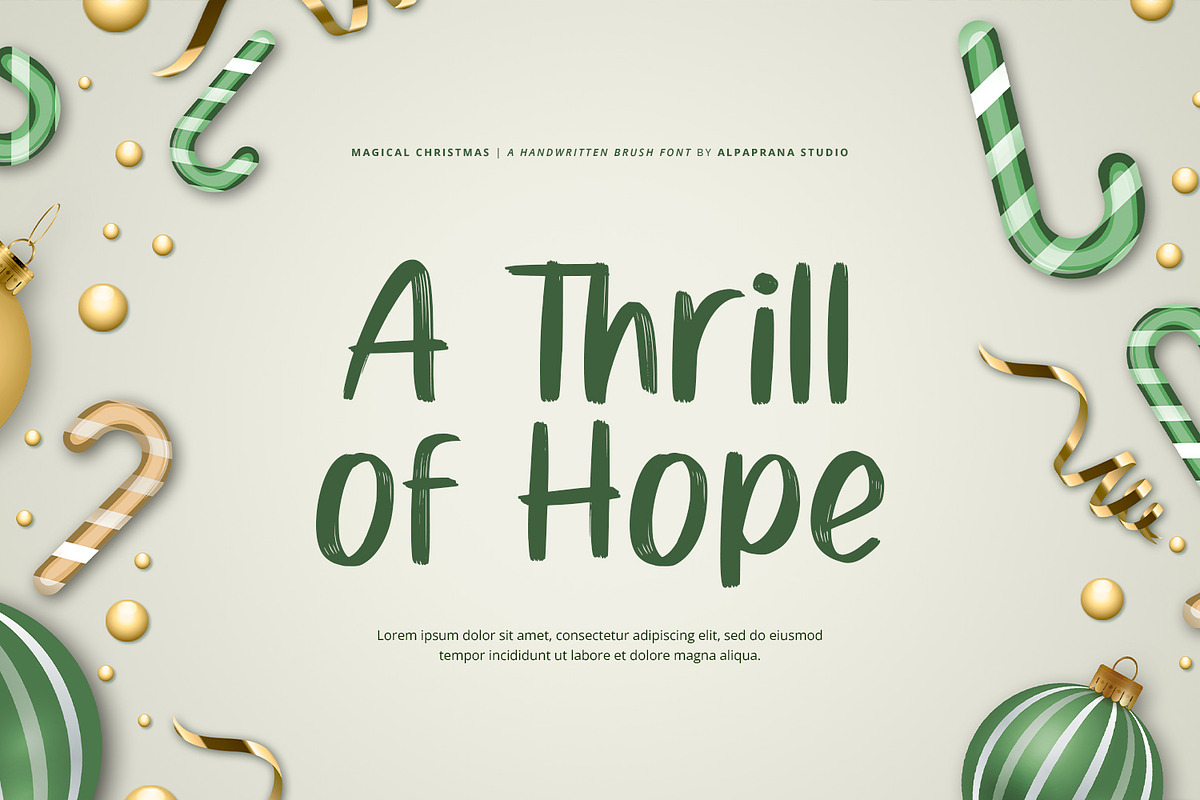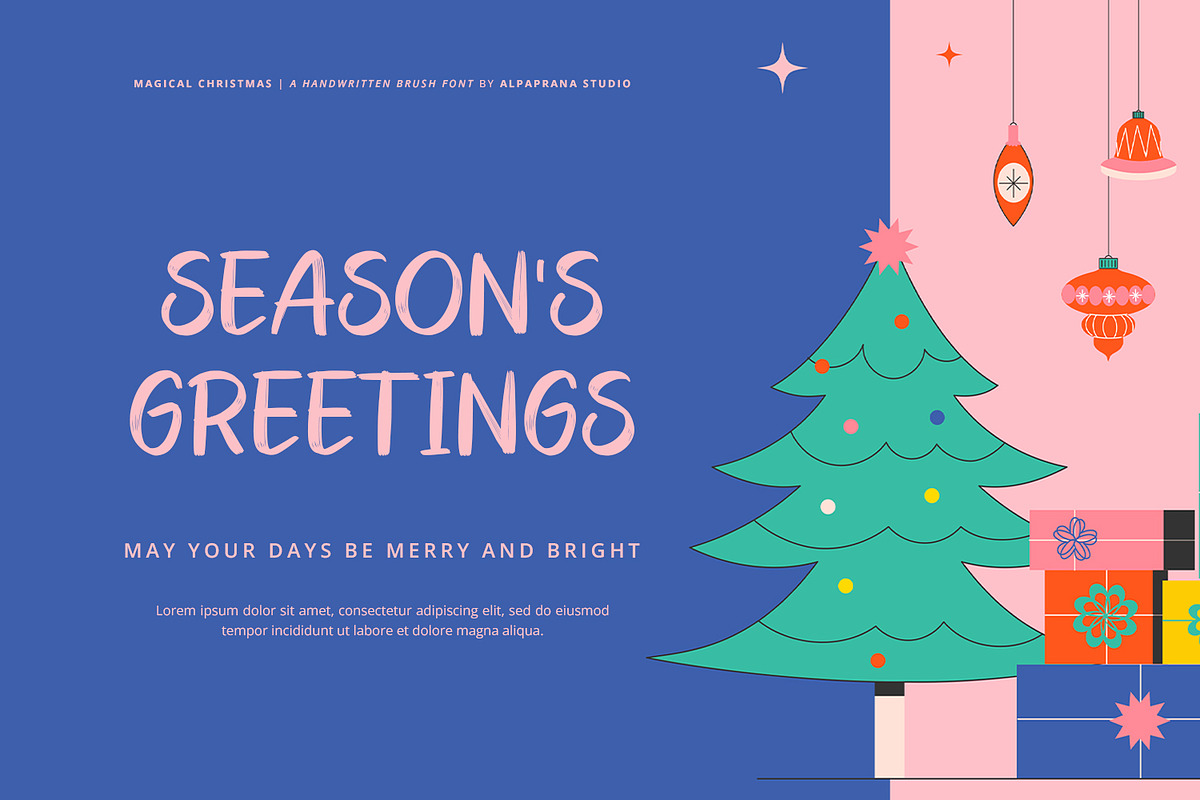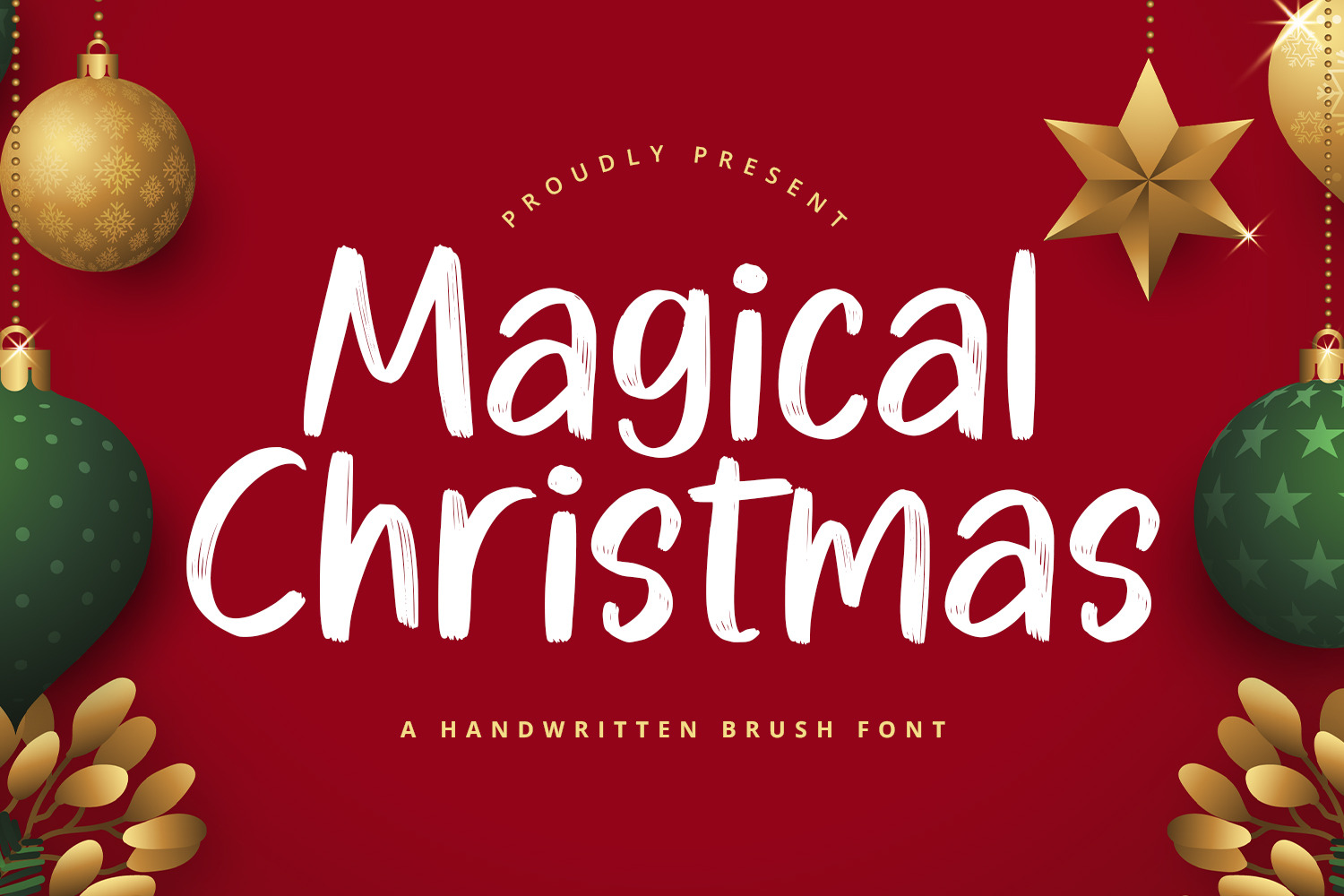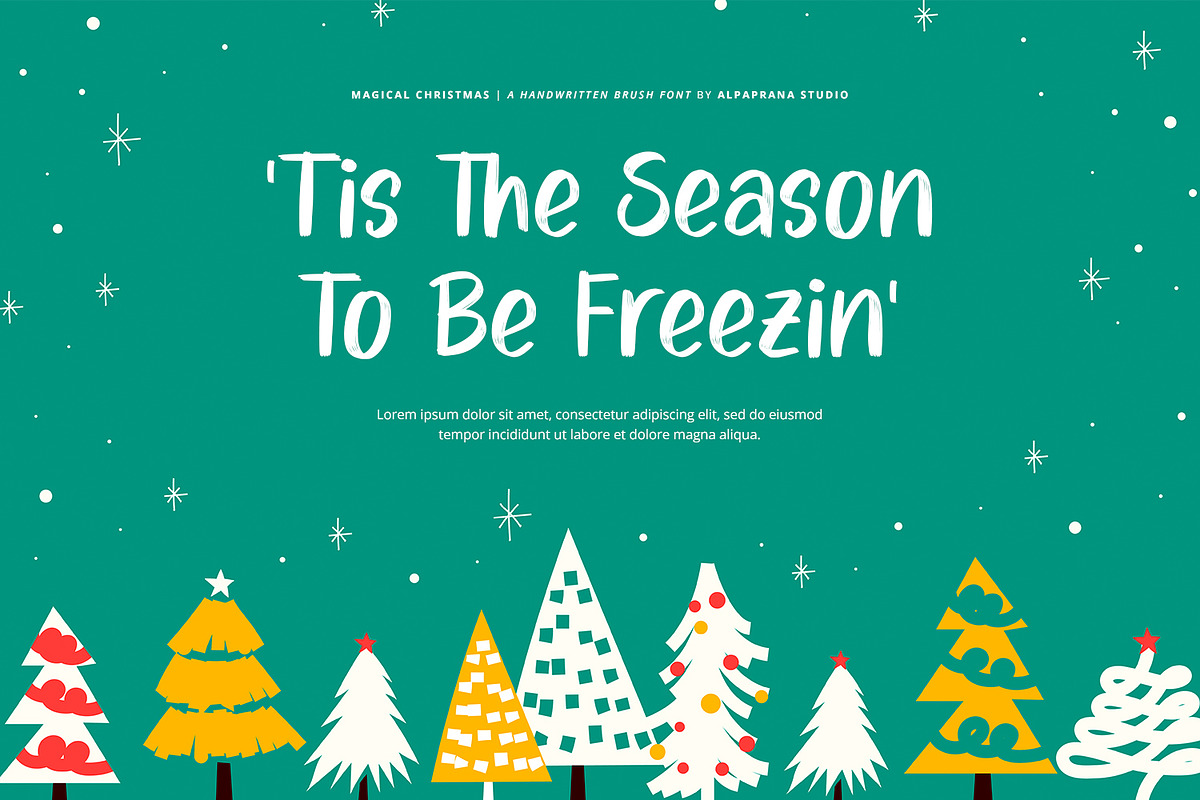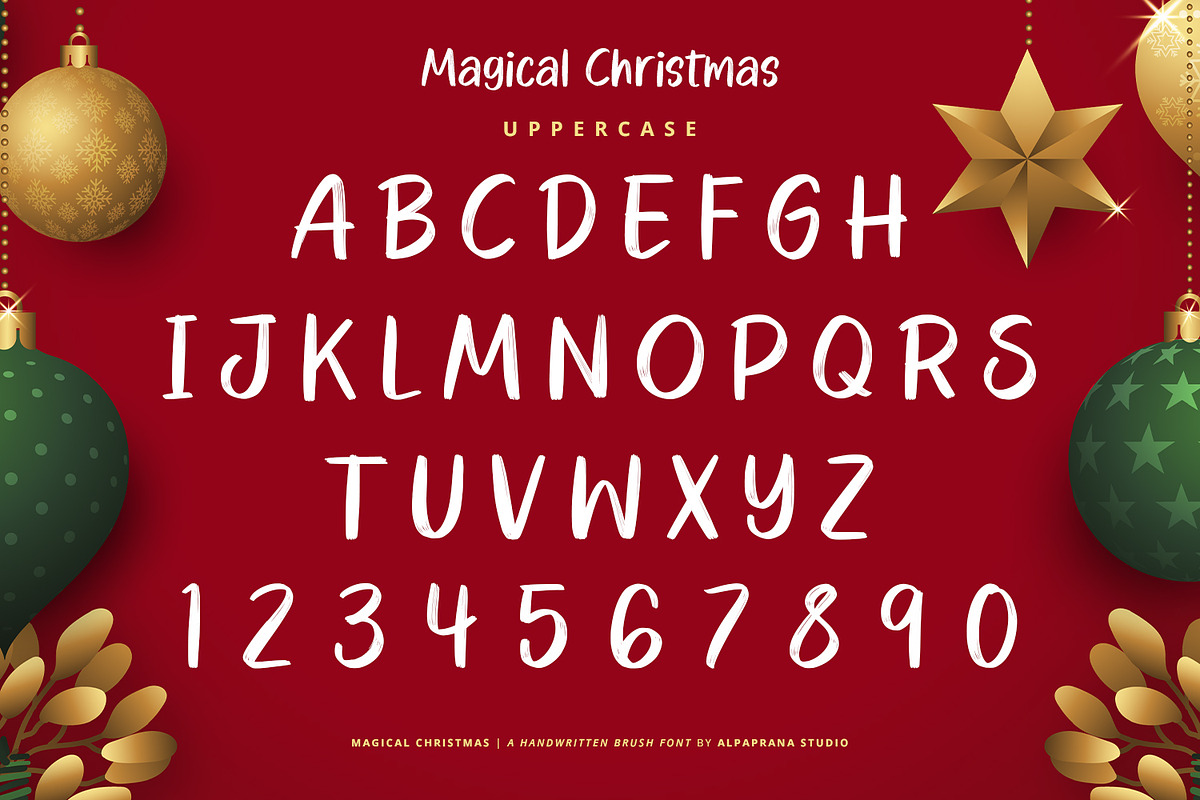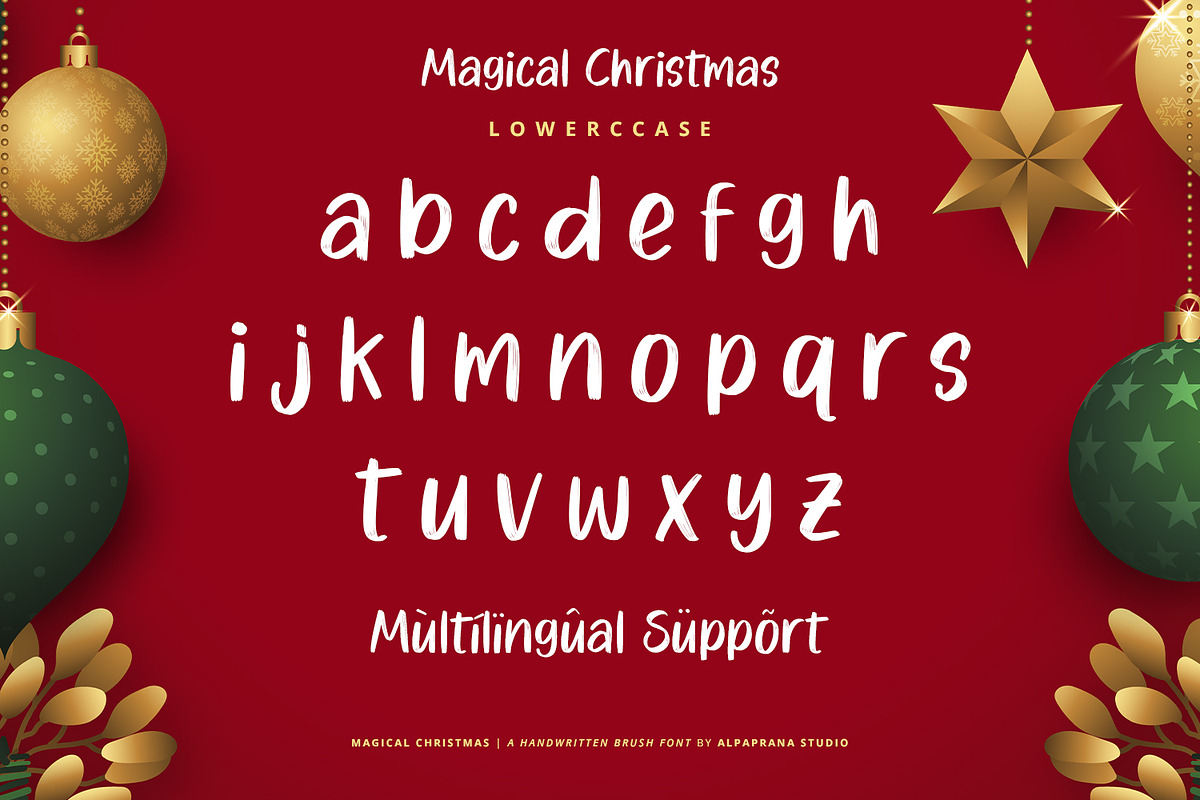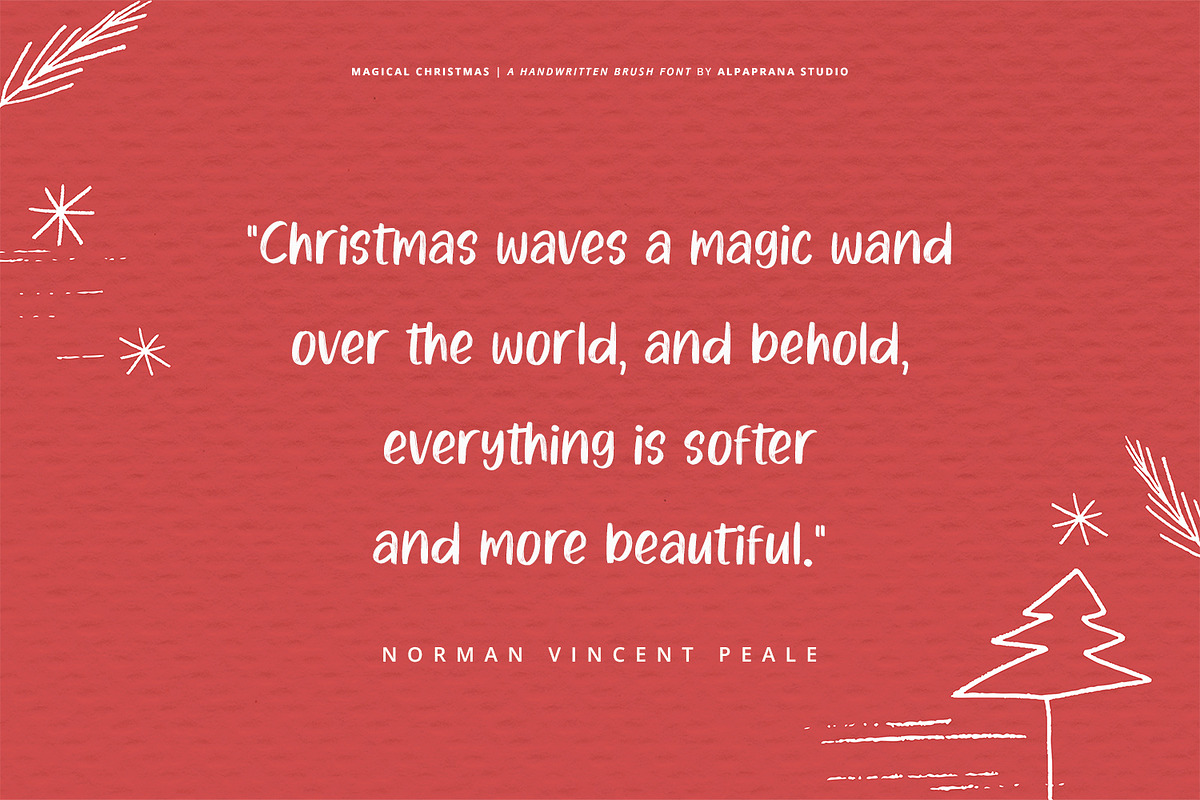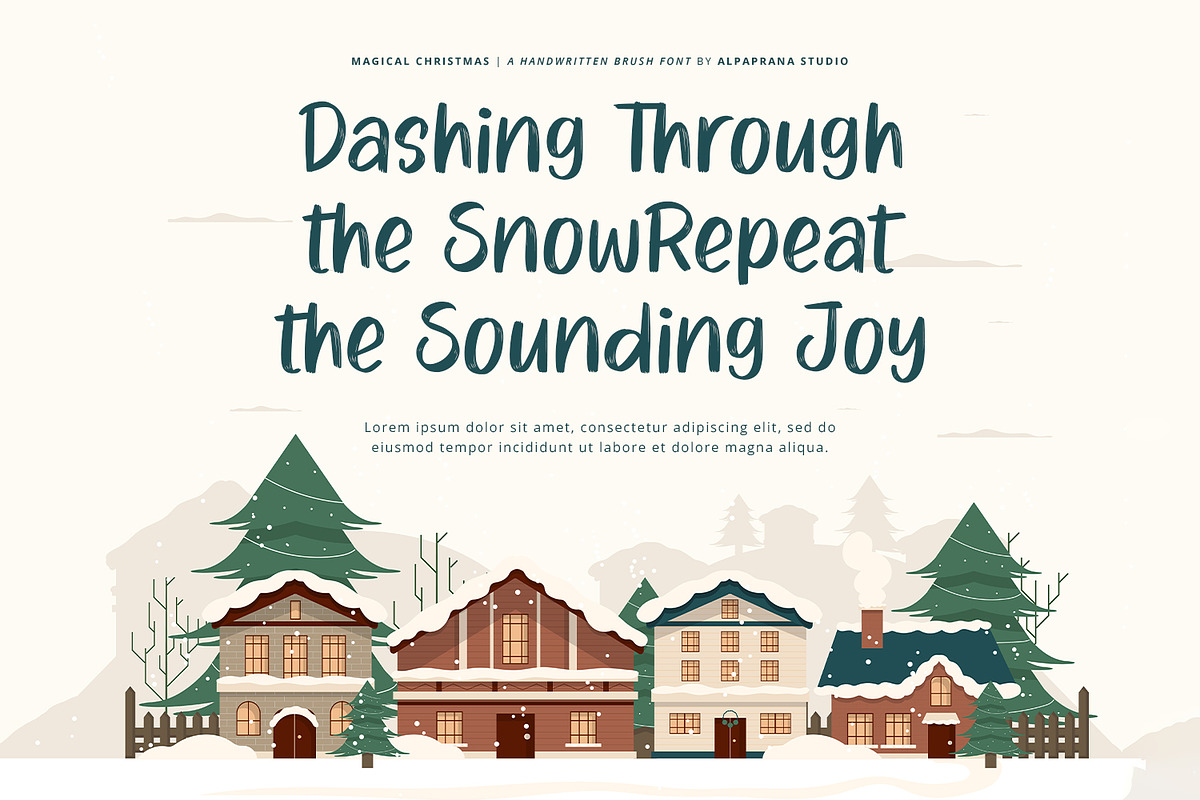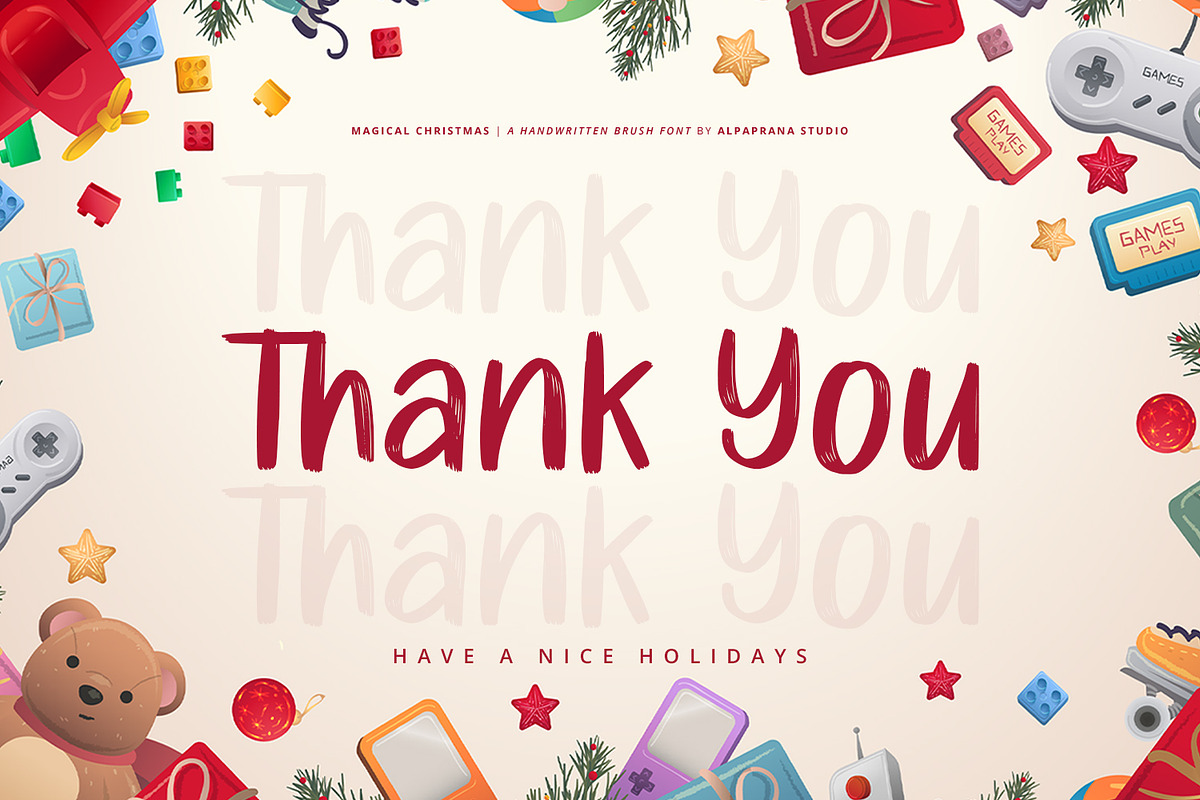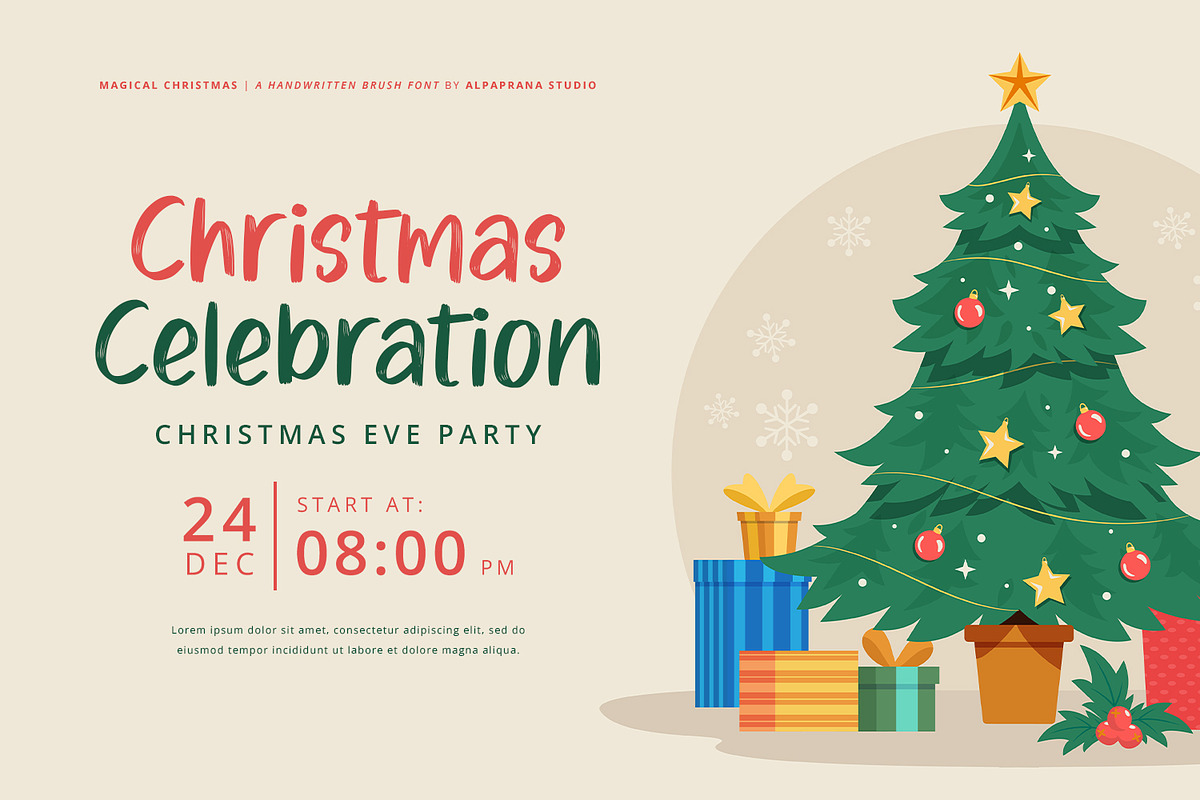
Magical Christmas - Handwritten Font
Magical Christmas is a handwritten font with brush and modern style. It will be perfectly used for Branding, Logo Design, Lettering, Logotype, Clothing, Poster, magazine, packaging, posters, shopping bags, t-shirts, book covers, photography, special events and other design project.